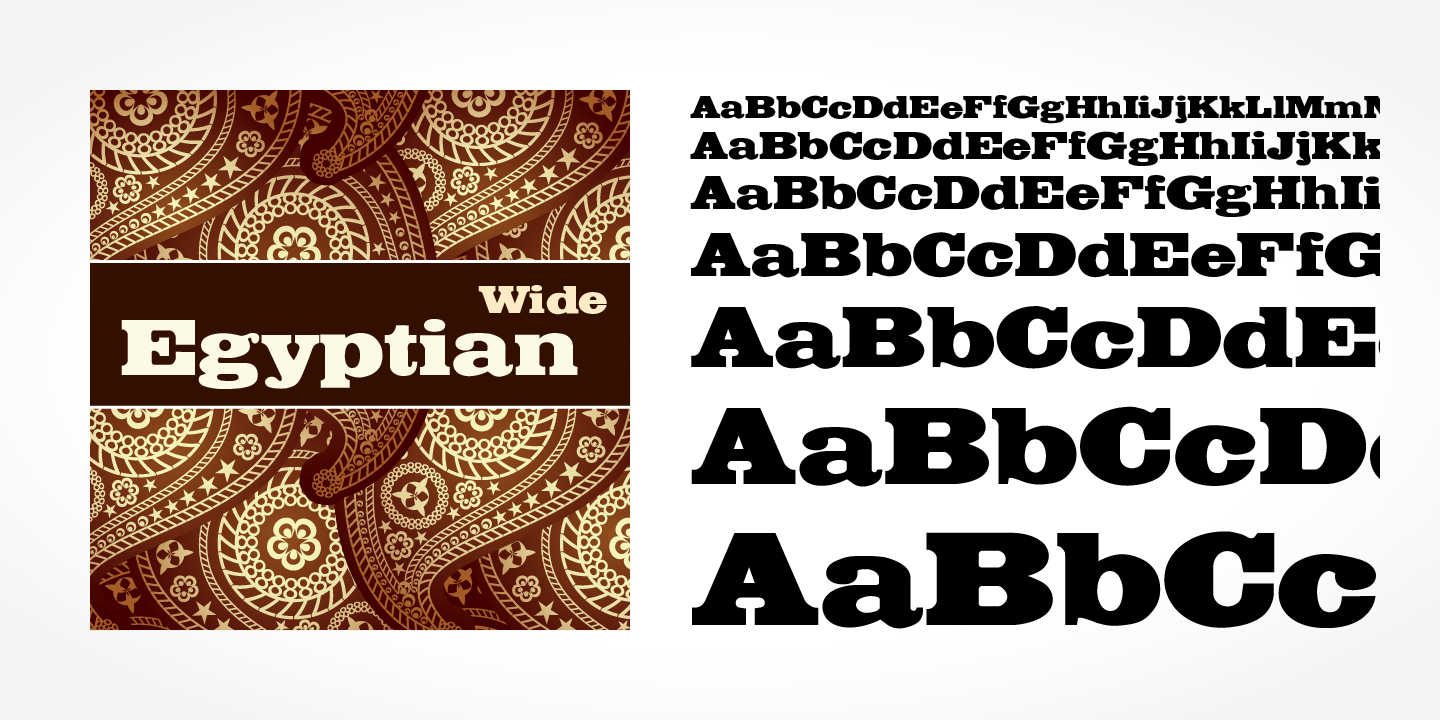
Egyptian Wide Font is perfect for archaeological documentation, ancient history publications, museum exhibition materials, Egyptian cultural events, historical tourism promotions, ancient civilization studies, cultural heritage projects, educational history resources, antiquity-themed branding, and monumental design applications. This majestic typeface creates authentic ancient atmosphere in both historical print and digital heritage platforms.
What makes Egyptian Wide Font exciting is its commanding embodiment of ancient Egyptian grandeur with monumental proportions and hieroglyphic-inspired sophistication. The font features wide letterforms with pharaonic proportions and ancient character details that evoke pyramid construction, temple inscriptions, and timeless Egyptian civilization. Its monumental design establishes an atmosphere of ancient authority and cultural magnificence that resonates with audiences fascinated by Egyptian heritage and archaeological wonders.
Egyptian Wide Font family includes monumental variations: Light, Regular, Medium, Bold, and Pharaonic versions, each with ancient alternates and Egyptian character sets. Each variant maintains the font's majestic personality while providing designers with monumental options for creating ancient typography systems and cultural communication materials.
This exceptional ancient typeface brings authentic archaeological credibility to projects requiring historical presentation. Whether you're designing museum exhibits, Egyptian cultural materials, or ancient history content, Egyptian Wide Font Free Download delivers outstanding grandeur and archaeological sophistication. The font's monumental proportions and ancient details ensure memorable historical connection across various Egyptian applications.
Museums and cultural institutions recognize how Egyptian Wide Font perfectly captures the essence of ancient Egyptian civilization and monumental architecture. Its archaeological foundation combined with cultural magnificence makes it essential for Egyptian and ancient history design projects. Download today and monumentalize your designs with this exceptionally majestic ancient typography.